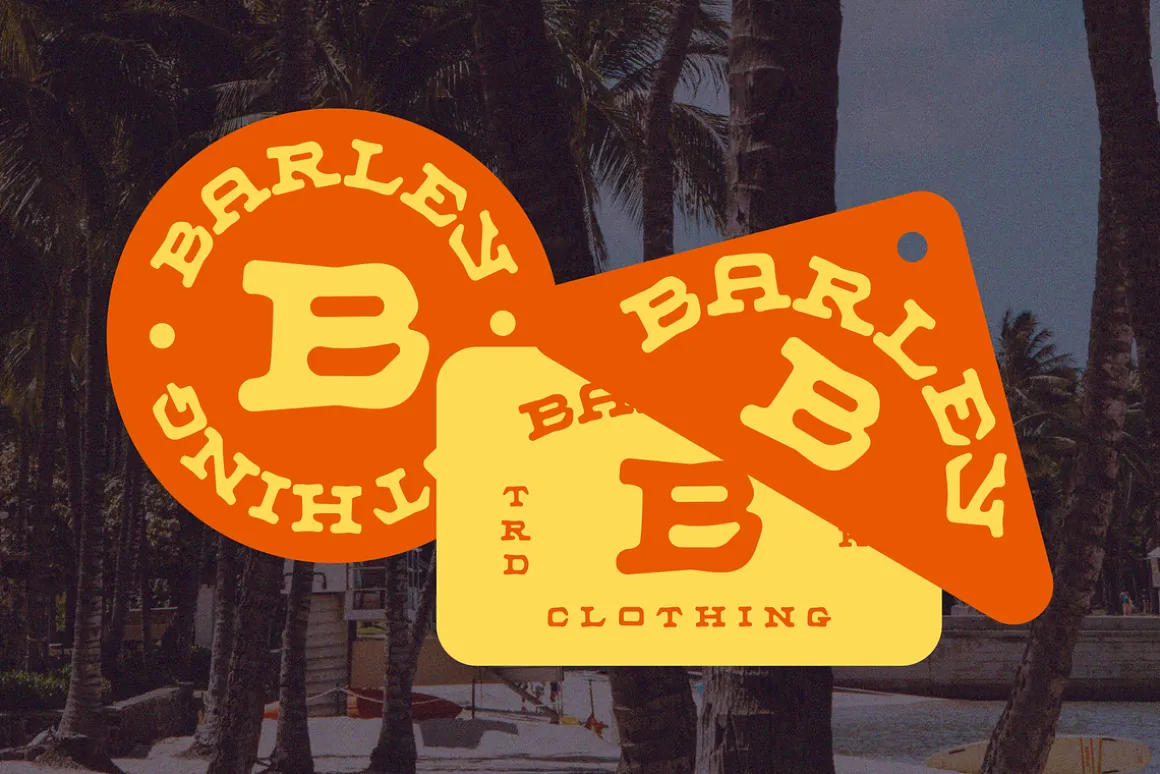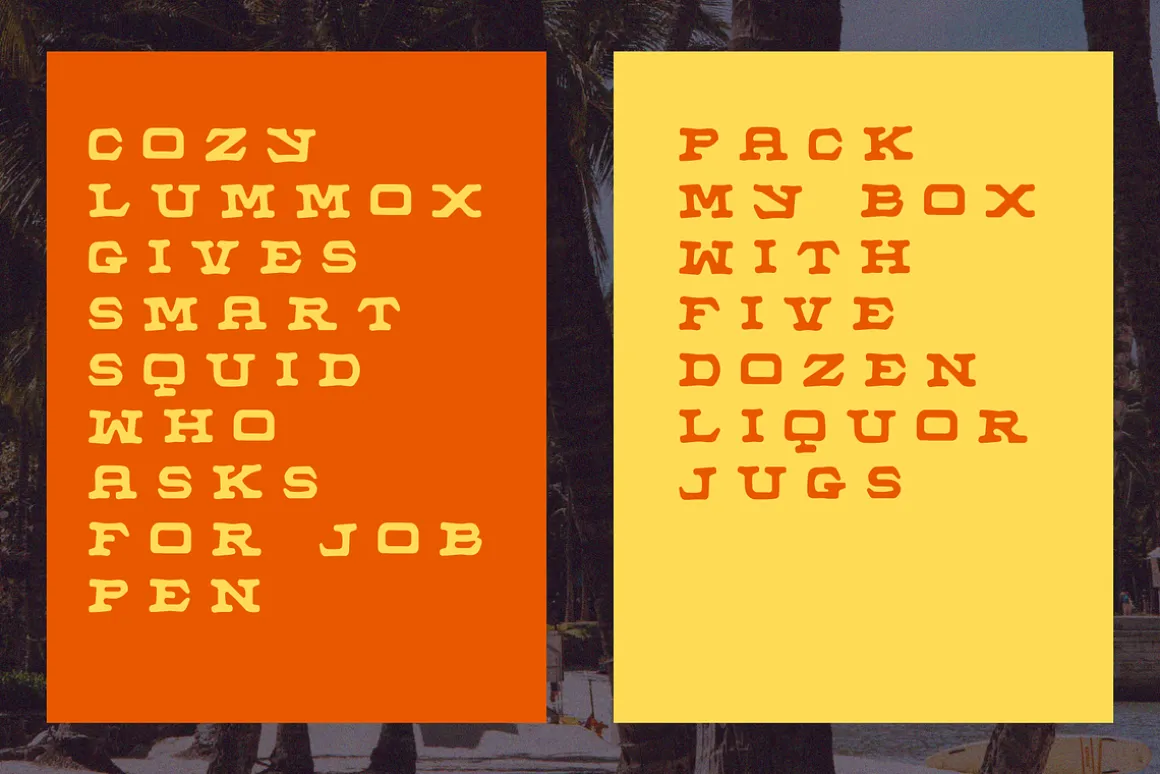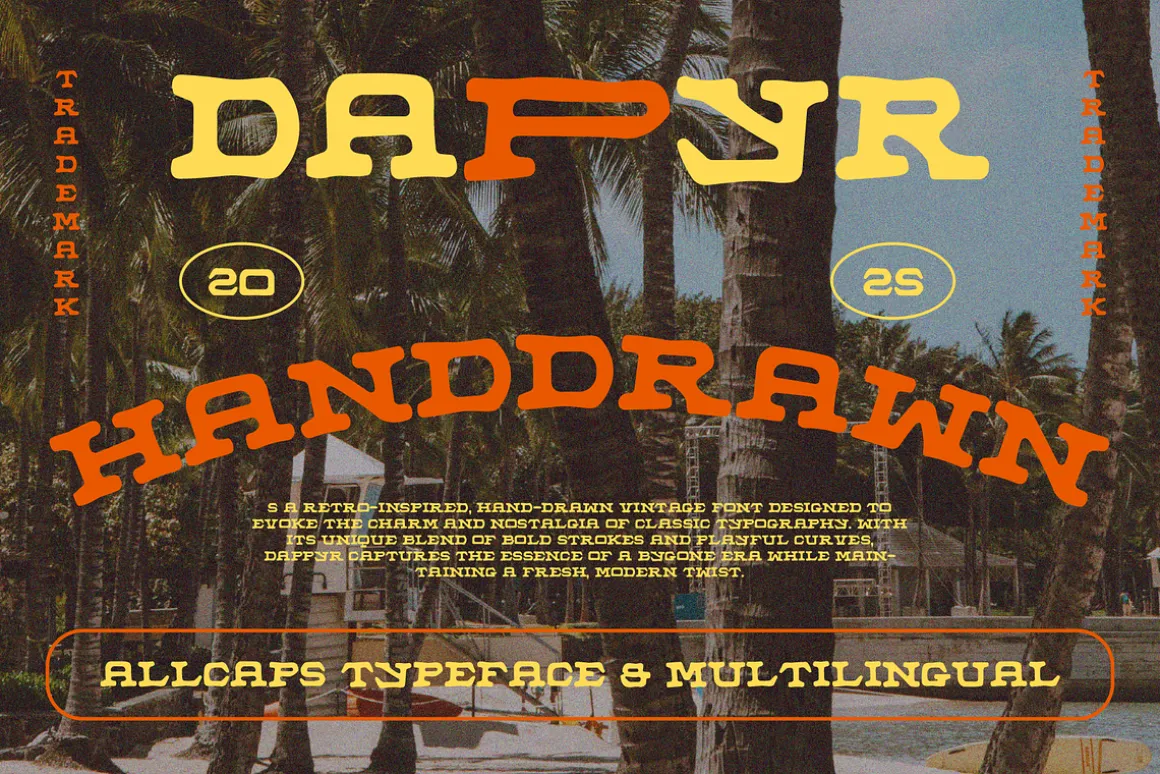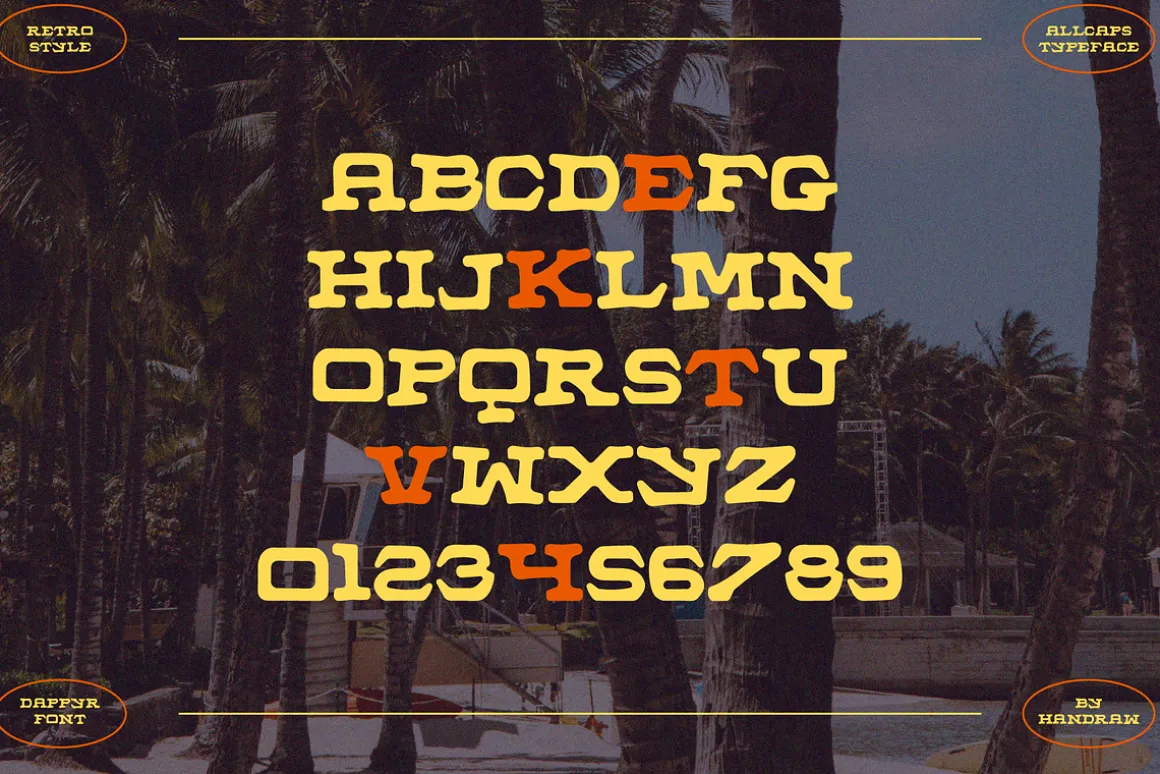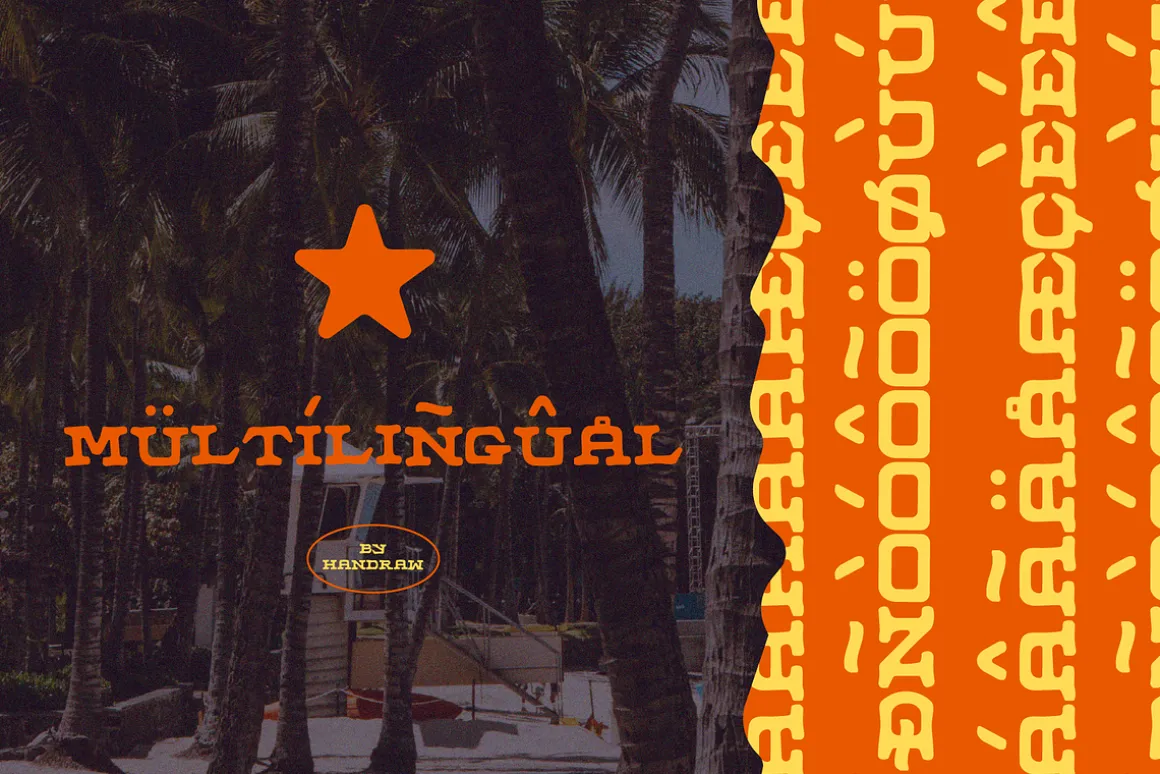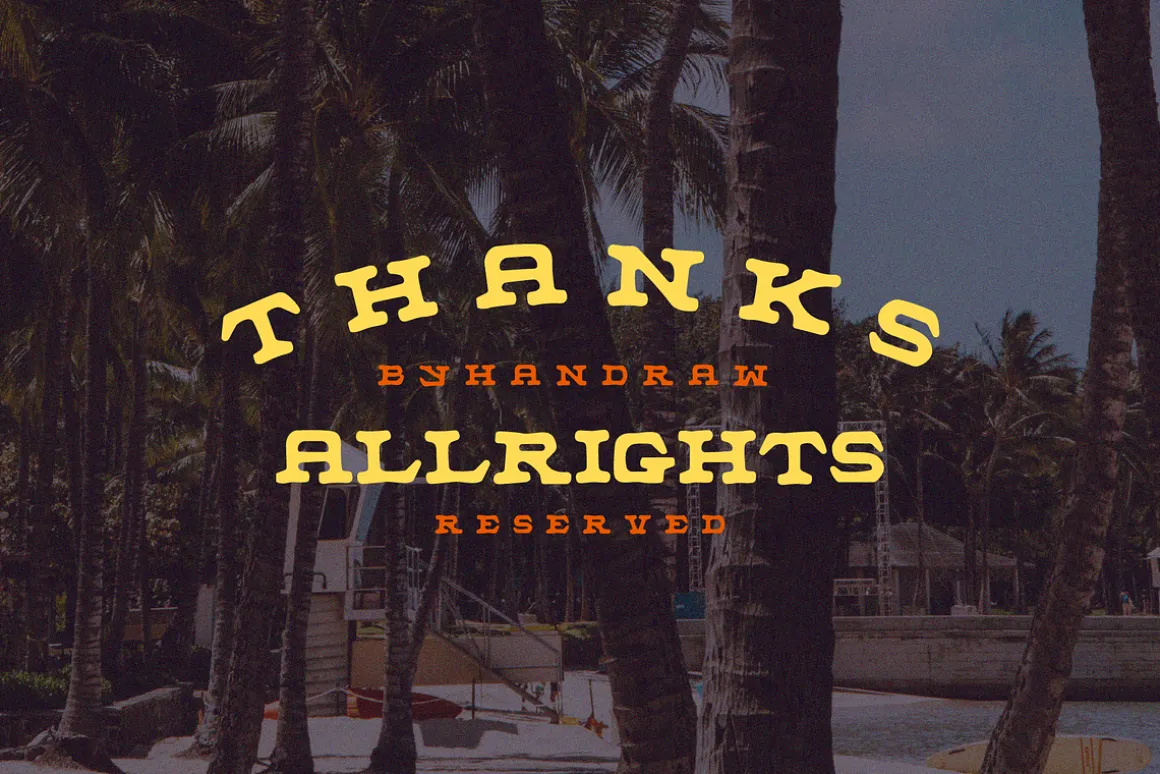
Dappyr is a retro-inspired, hand-drawn vintage font designed to evoke the charm and nostalgia of classic typography. With its unique blend of bold strokes and playful curves, Dappyr captures the essence of a bygone era while maintaining a fresh, modern twist. Perfect for projects that aim to infuse personality, warmth, and a touch of retro flair, this font is ideal for posters, branding, packaging, and any creative design needing a distinct, hand-crafted look. Whether you’re working on vintage-inspired graphics or contemporary designs with a retro vibe, Dappyr brings the perfect balance of authenticity and artistic expression.